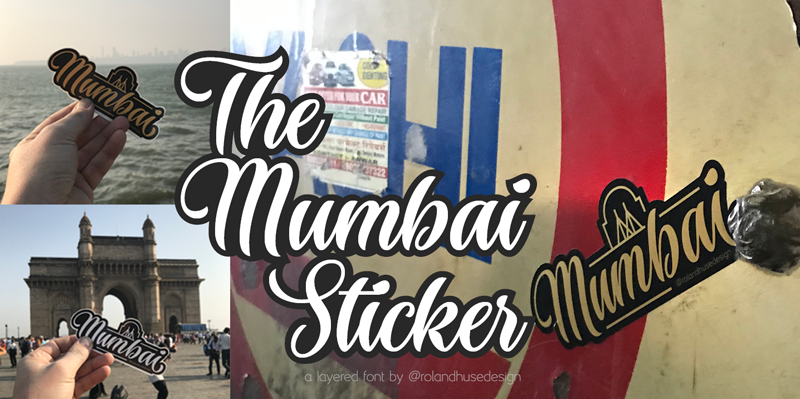
This is a demo version of the layered font �The Mumbai Sticker�. instructions to use: � for smooth connections of v s, v r, v z, w s, w r, and w z please enable �standard ligatures� in open type features panel � Type a text with the �Regular� version, then copy and paste in back (cmd B) and switch to �Shadow Outline� version. Please make sure you give it a different color to make the main font visible. Looks best in Black and white as you can see in the poster image but feel free to play around! � � � For full version and commercial license please visit https://rolandhuse.com or contact@rolandhuse.com The full / commercial version contains Western and Eastern European accented characters and special characters, punctuation and ligatures. I have created this font from the sticker I designed for my Mumbai trip for my friend�s wedding, you can watch a short video of the process and the story behind. https://youtu.be/bO8e9lQ0DNU Subscribe to my channel @rolandhusedesign Follow me on Instagram workingwithglyphs.com subsribe to my Glyphs course |